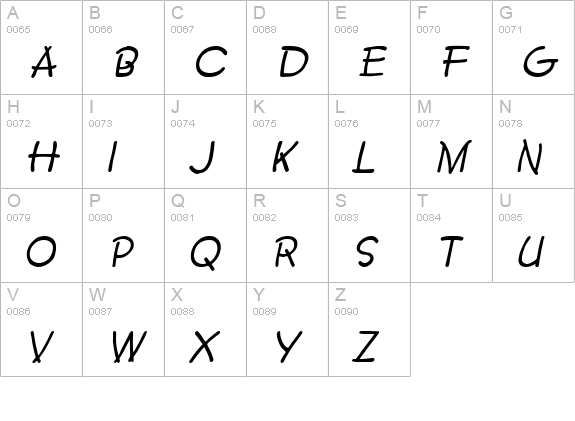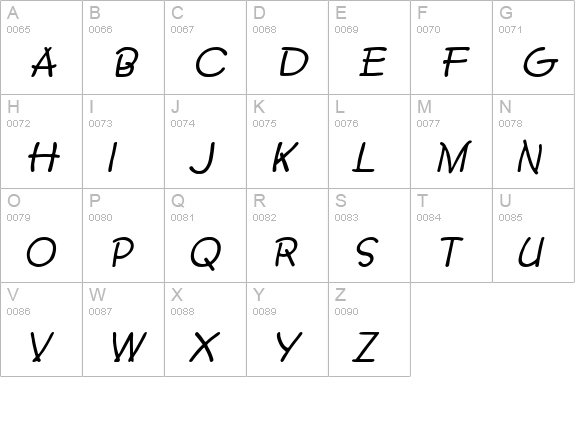
Crayon Italic Font Details
Crayon Italic is a distinctive, italic variant in the Crayon typeface family \xE2\x80\x94 well suited to design and typography projects.
Introducing Crayon Italic font, a charming and whimsical typeface that exudes creativity and playfulness. The unique italic design of this font gives it a dynamic and energetic feel, perfect for adding a touch of fun to your projects. This delightful font is ideal for a variety of design purposes, from children's books and invitations to posters and branding materials. Its hand-drawn appearance captures the essence of spontaneity and imagination, making it a versatile choice for both digital and print projects. Best of all, Crayon Italic font is available for free download at FontsMarket.com. Whether you're a seasoned designer looking to add a pop of personality to your work or a hobbyist searching for a playful font for personal projects, Crayon Italic is sure to inspire creativity and delight. Download it today and let your imagination run wild with this charming and expressive typeface.